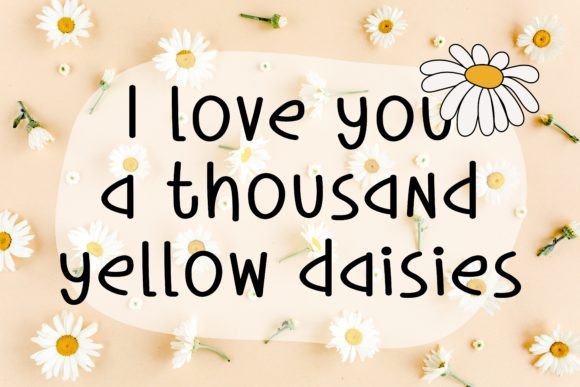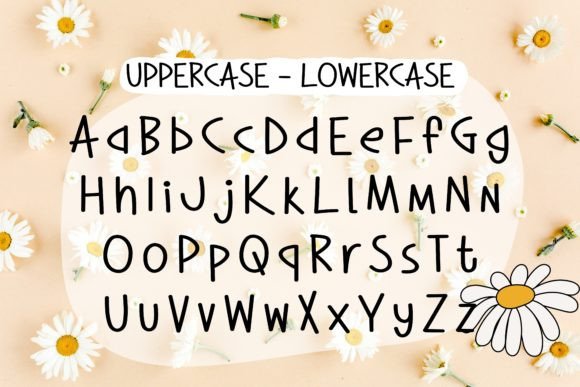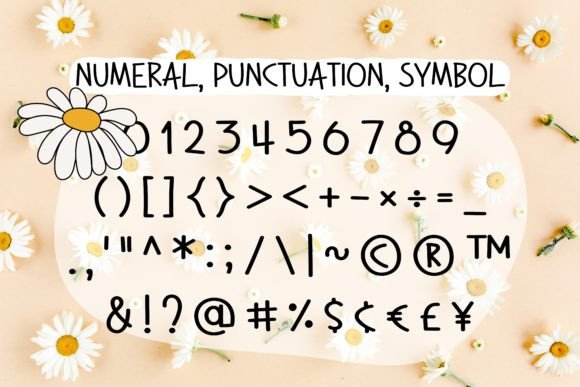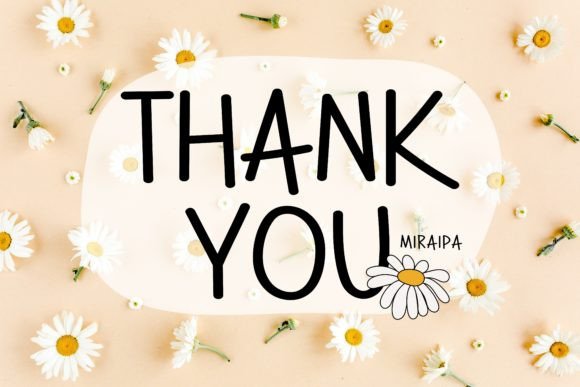
Introduction to Daisy Land Font
Daisy Land is a modern sans-serif font, characterized by clean lines and a minimalistic aesthetic.
It’s versatile, legible, and perfect for digital media, logos, and branding, making it an ideal choice for contemporary design projects .
Key Features of Daisy Land Font
Why Choose Daisy Land Font?